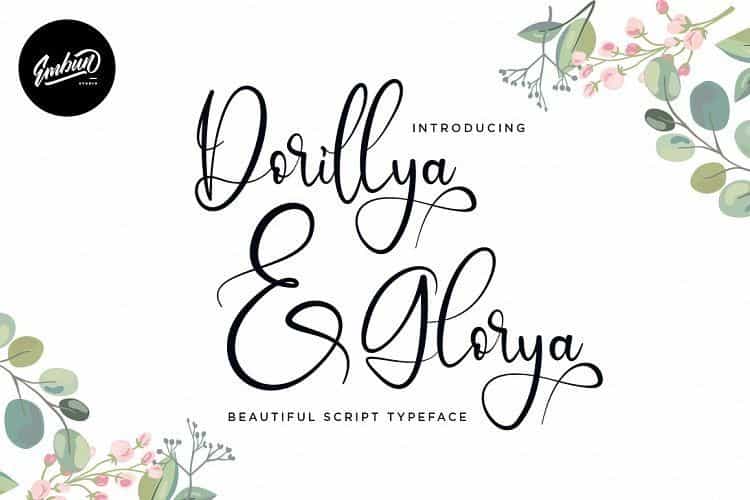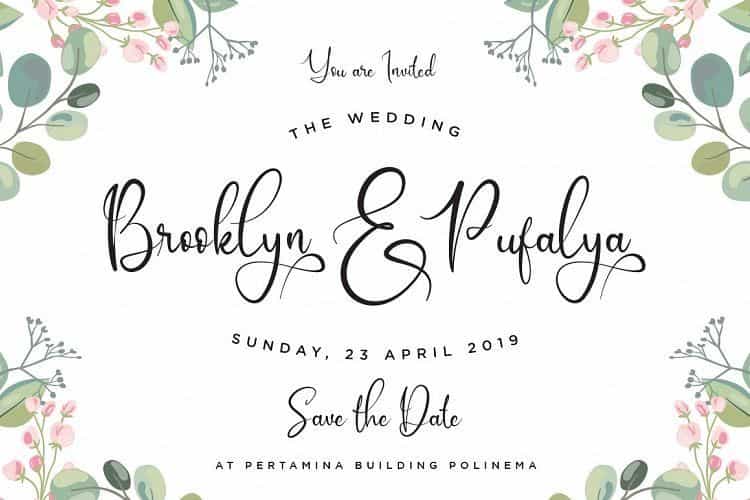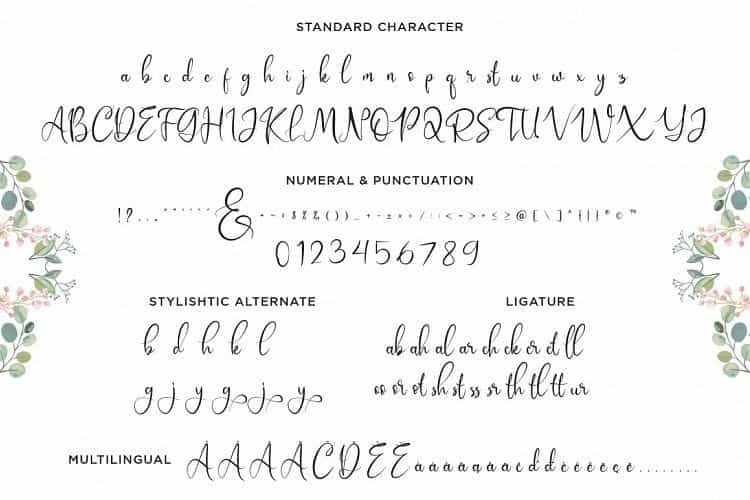
Why should you consider Dorillya & Glorya Font? It is a contemporary font that is categorized under the script calligraphy font with elegance in its alternate and ligature. Perfect for your project like Wedding Invitation, Business Card, Logo Brand, Greeting Card and etc.